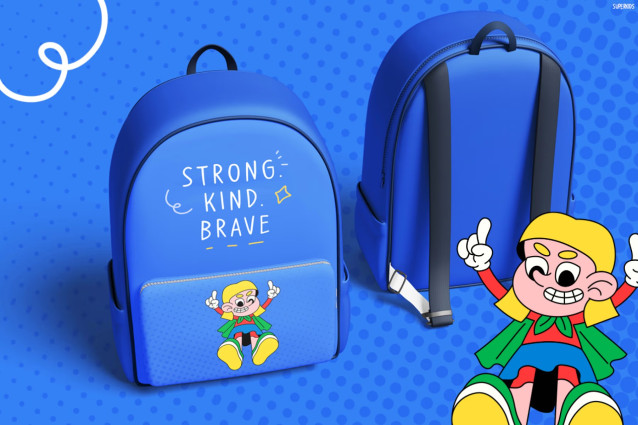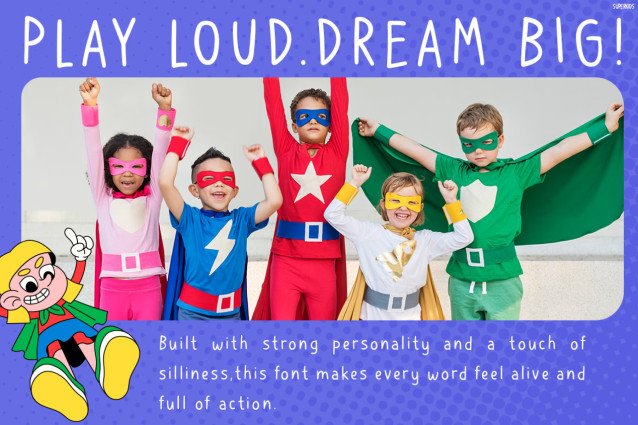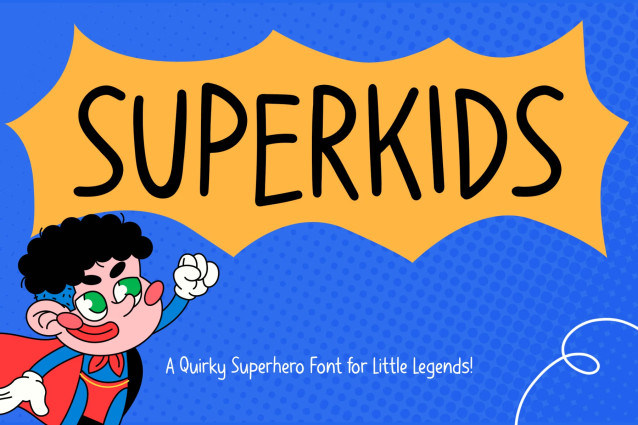
Superkids Font
Superkids – Fun Hero Kids Font for Playful Designs & Creative Adventures
Kids Font Superkids is a cheerful and energetic display font made to bring fun, imagination, and heroic vibes into every design. Inspired by comic books, playful doodles, cartoon adventures, and children’s creativity, this font instantly creates a lively atmosphere. Moreover, its hand-drawn style, tall letterforms, and playful curves make every word feel expressive and full of personality. At the same time, the clean structure keeps the font readable and versatile. As a result, Superkids works beautifully for both print and digital projects. In addition, the font delivers a friendly and authentic look that captures the joyful spirit of childhood. Even better, Kids Font Superkids supports 67 languages, allowing creators to design for wider global audiences with ease.
Kids Font Superkids combines playful energy with strong readability. Not only does the handcrafted letter style create a natural and fun appearance, but it also adds warmth and creativity to every layout. Furthermore, the comic-inspired aesthetic gives designs a bold adventurous feel. Because of its energetic personality, this font helps visuals look more exciting and memorable. Meanwhile, the playful details make branding feel more approachable and fun. Therefore, Superkids becomes an excellent choice for creators who want cheerful typography with strong visual impact.